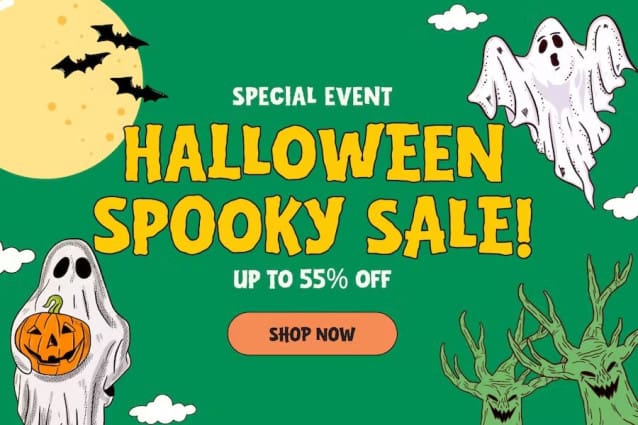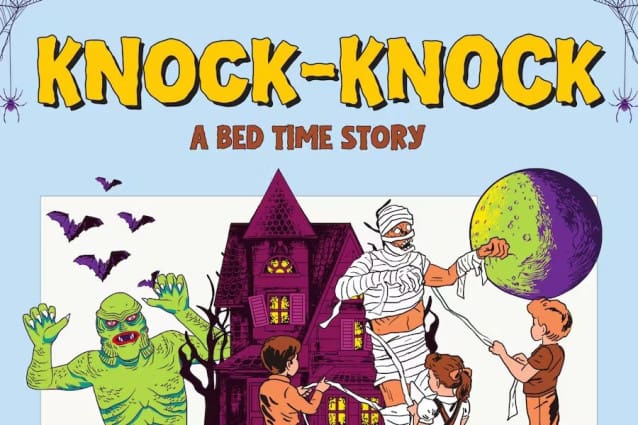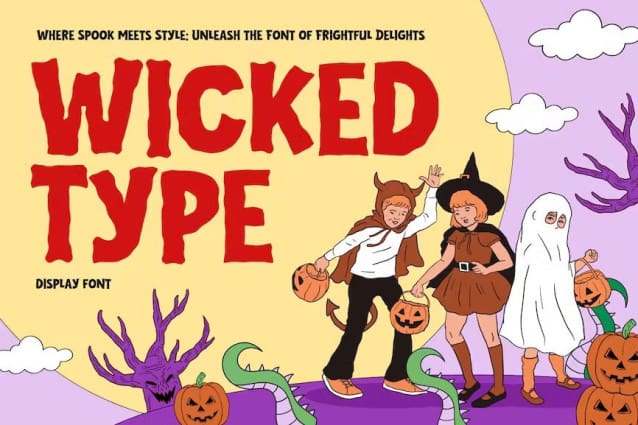
Wicked Type Font
Wicked Type Font, the ultimate display font to bring spine-tingling horror and spine-chilling creativity to your design projects. This bold and blocky font is tailor-made for Halloween enthusiasts, horror aficionados, and anyone looking to add a touch of the macabre to their work.
With its menacing appearance, “Wicked Type” embodies the essence of Halloween, making it the perfect choice for crafting eerie headlines, terrifying posters, and creepy invitations. The font’s robust, blocky letters lend an air of authority and command attention, ensuring that your message doesn’t go unnoticed.
“Wicked Type” is inspired by classic monster tales and ghostly legends, making it the ideal companion for your scary storytelling endeavors. Whether you’re conjuring up haunted house signs or brewing up ghostly graphics, this font will send shivers down your audience’s spines.
Don’t miss the chance to unleash the sinister side of design with “Wicked Type.” It’s the font that transforms your projects into wickedly unforgettable masterpieces, making every day feel like Halloween. Get ready to scare and share!